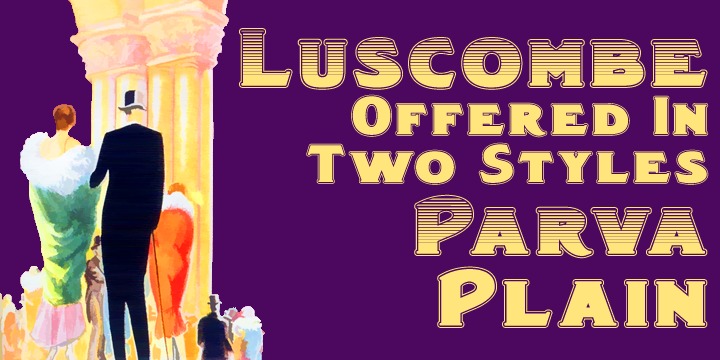
Luscombe is a boisterous and lively display face, recalling the shaded and outlined faced much beloved of 1920s poster and advertising artists, while offering a regularity of outline that those faces often did not achieve. Itís ideal for poster and display work, or for signage with a subtle period feel. Mix the two faces to add emphasis where it’s needed.